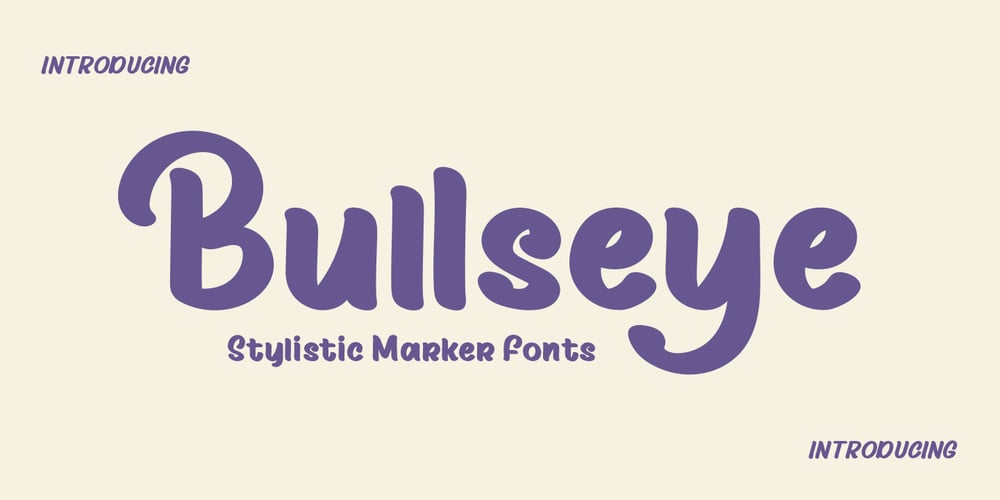
Bullseye Font Family was designed by Stefie Justprince and published by Crumphand. Bullseye contains 1 styles and family package options. Hello, this is the new font “Bullseye” The font has made by Sharpie Marker. Looks bold but still Elegant and Fresh.The font have a good Readability.What’s Character Included ? Uppercase Lowercase Numerals Punctuation Multilingual Support Stylistic Set. Standart Ligature Thank you, Regards!